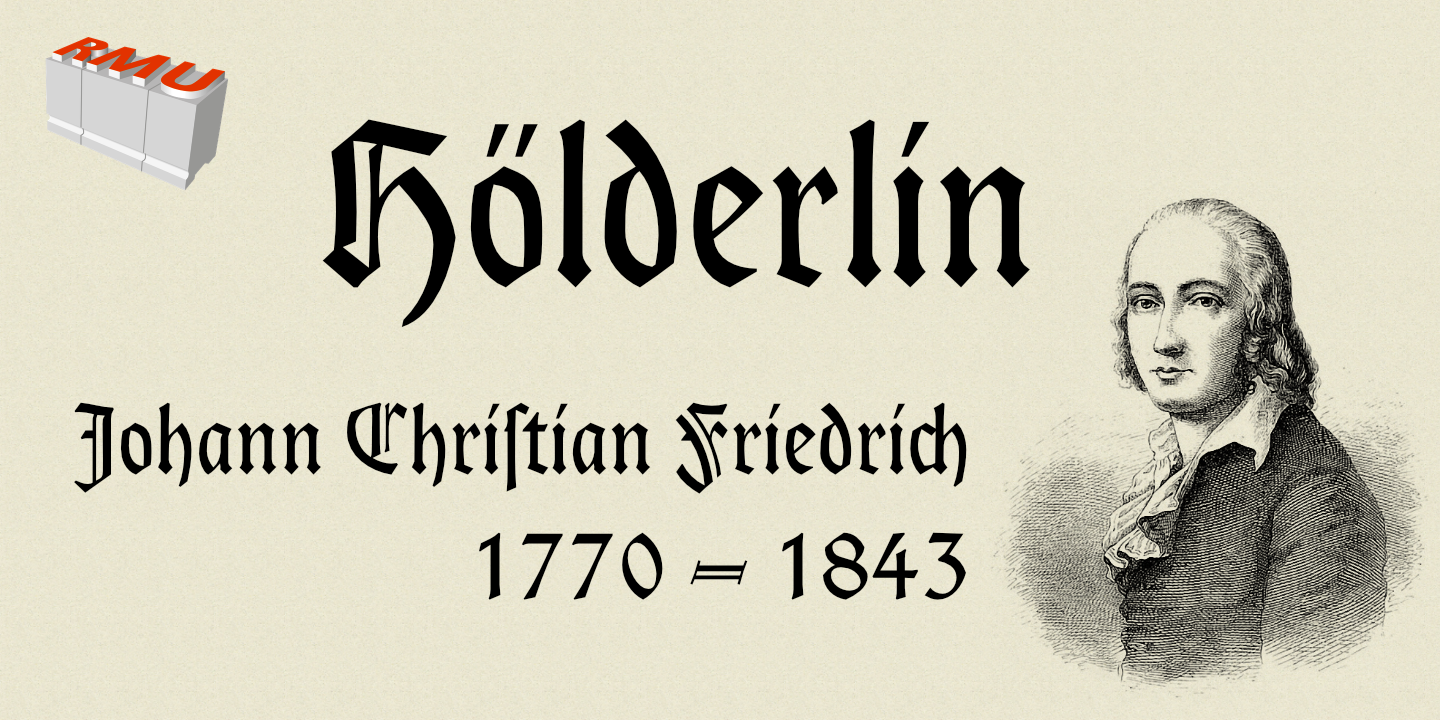
Hoelderlin Font is perfect for philosophical journal publications, German literary magazines, classical poetry collections, university philosophy departments, intellectual conference materials, romantic poetry books, German cultural institutions, academic research presentations, existential philosophy texts, literary criticism publications, classical studies programs, and sophisticated scholarly communications.
This font is exciting because it embodies the profound intellectual depth and romantic idealism of Friedrich Hölderlin, one of Germany's greatest poets and philosophers, featuring elegantly contemplative letterforms that flow with the same lyrical beauty and philosophical gravitas that defined the Romantic movement and German intellectual tradition. The refined character design captures both the emotional intensity of romantic poetry and the rigorous precision of philosophical inquiry, creating typography that feels worthy of the deepest thoughts and most beautiful expressions of human consciousness. Each letter radiates the kind of intellectual sophistication and artistic sensitivity that transforms ordinary text into vessels for profound ideas and transcendent beauty.
The Hoelderlin Font family includes regular and italic weights with complete character sets featuring classical numerals, scholarly punctuation marks, and decorative elements inspired by German Romantic literature, philosophical manuscripts, and classical typography traditions. Advanced versions may offer additional stylistic variants with enhanced poetic flow, alternate characters that reflect traditional German typographic practices, and ornamental elements that celebrate the rich heritage of German philosophical and literary achievement.
Whether you're developing academic publishing materials, creating philosophical content, or designing literary publications, Hoelderlin Font Free Download provides the intellectual elegance and romantic sophistication your project needs to honor the highest traditions of German scholarship and poetic expression. This typeface transforms ordinary text into philosophical meditations that carry the weight of profound thought and the beauty of poetic inspiration. The font's scholarly character makes it ideal for institutions and publications that value intellectual rigor and cultural depth. Philosophy enthusiasts and German literature scholars will appreciate how this font brings authentic romantic intellectual tradition to their work with its genuinely sophisticated and philosophically resonant character that honors Hölderlin's magnificent legacy.